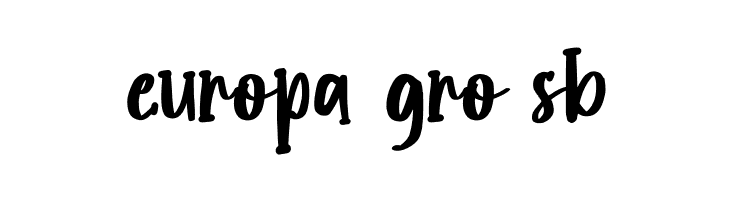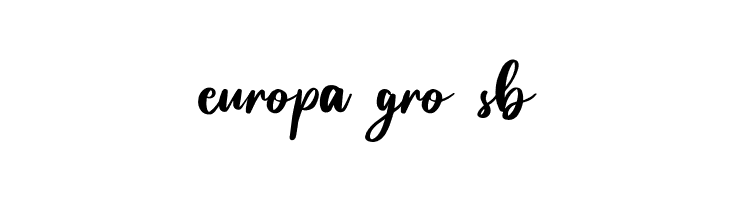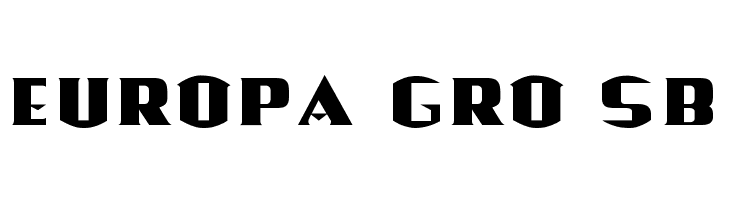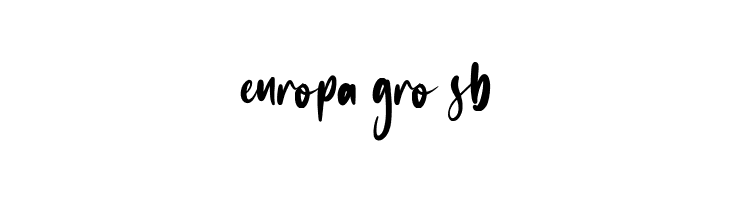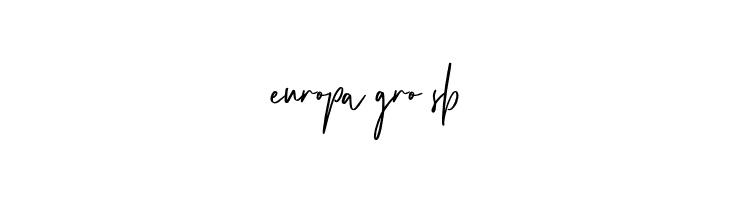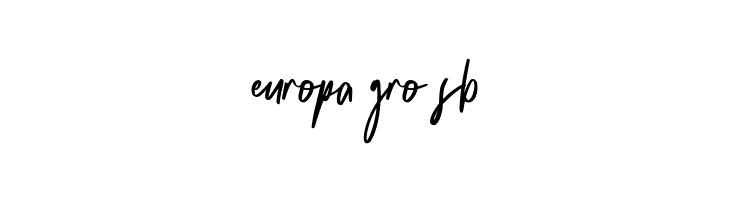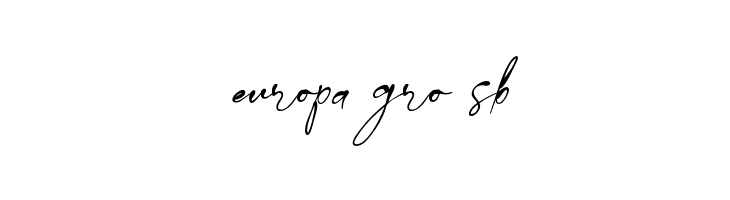
A modern, elegant script font with fluid strokes and decorative flourishes.
A playful, hand-drawn font with whimsical, uneven strokes.
A playful, hand-drawn font with bold, irregular strokes and a whimsical style.
A lively, flowing script font with elegant, connected letters and a natural handwriting style.
A bold, geometric font with sharp, angular edges and a modern, edgy style.
A bold, energetic handwritten font with fluid strokes.
A dynamic and fluid handwritten font with elegant, flowing strokes.
A modern, handwritten font with a casual and dynamic style.
A playful, handwritten font with smooth, rounded edges and a casual style.
A lively, handwritten-style font with fluid, expressive strokes.